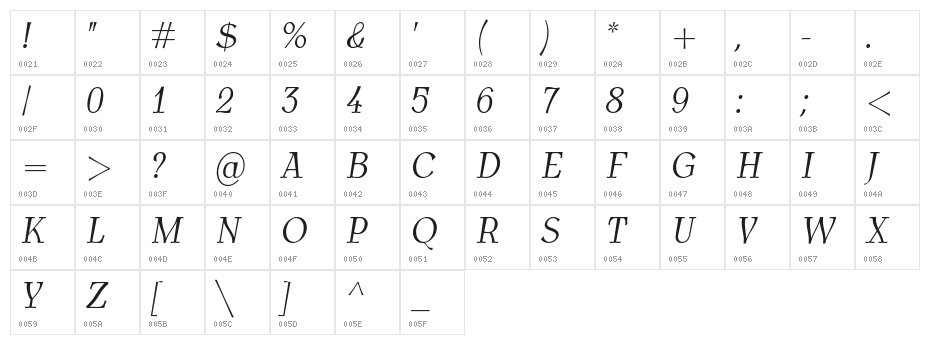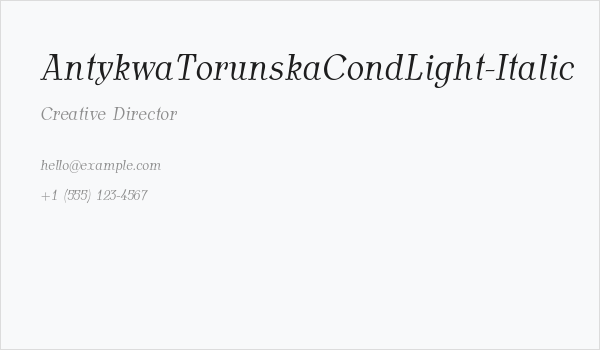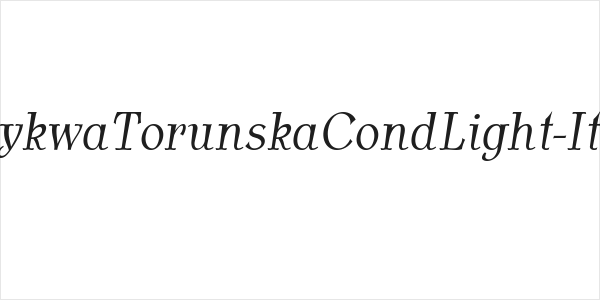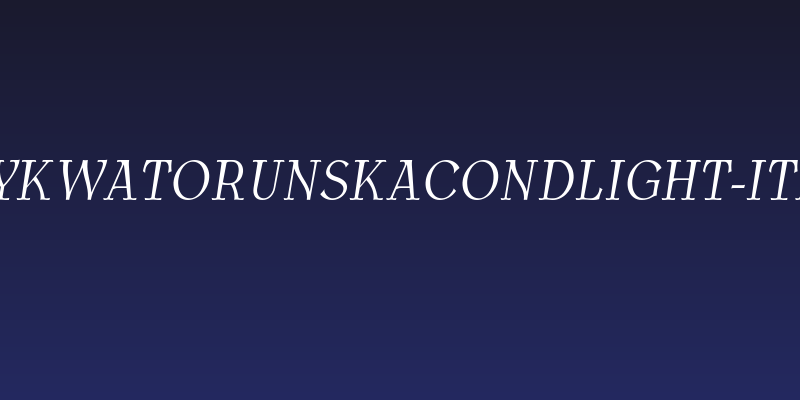
AntykwaTorunskaCondLight-Italic Font
AntykwaTorunskaCondLight-Italic Description
This font features a classic serif style with a refined and elegant appearance. The characters are slightly condensed, giving it a sophisticated look. The italic design adds a graceful slant to each letter, enhancing its traditional aesthetic. The strokes are light, providing a delicate and airy feel, while maintaining readability. The contrast between thick and thin strokes is medium, offering a balanced visual appeal. The font includes a full set of uppercase and lowercase letters, numerals, and a variety of special characters, making it versatile for various design needs.
| Proposed Projects | Ideal for projects requiring a touch of elegance, such as wedding invitations, formal event programs, or classic book typesetting. |